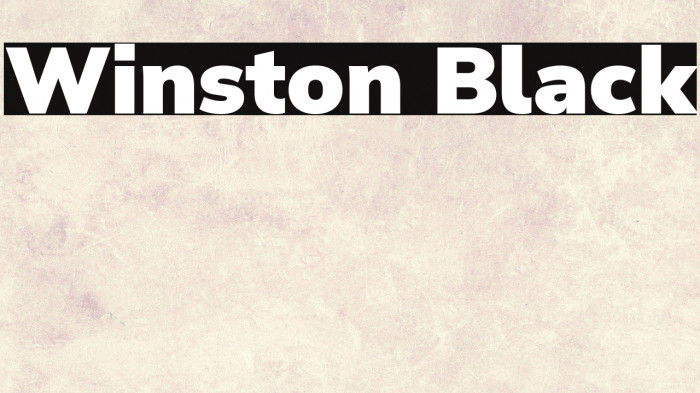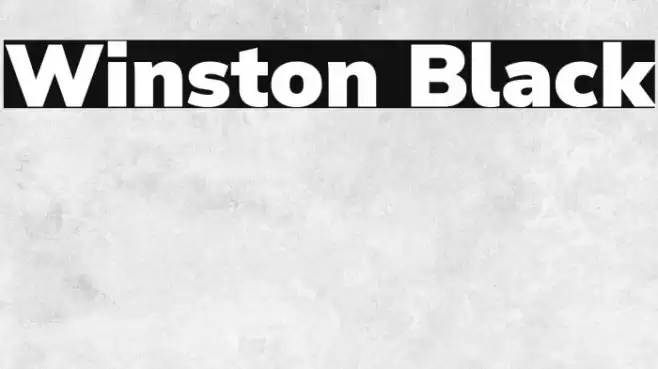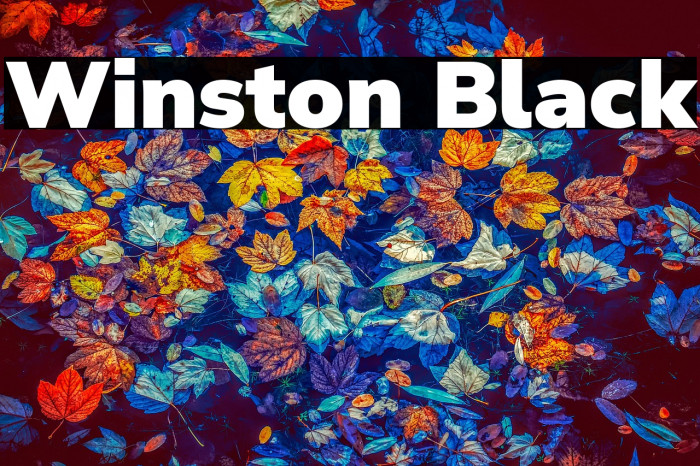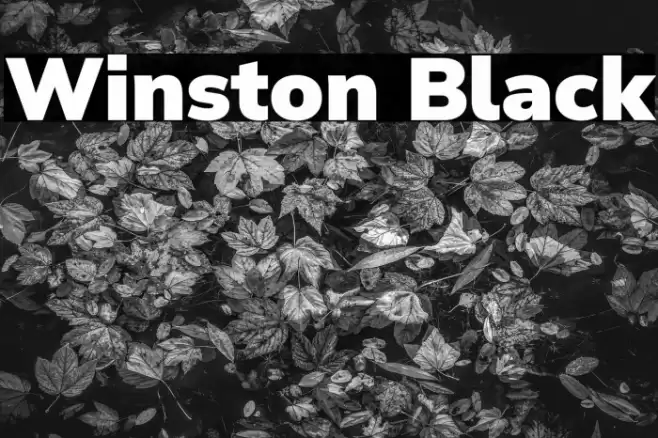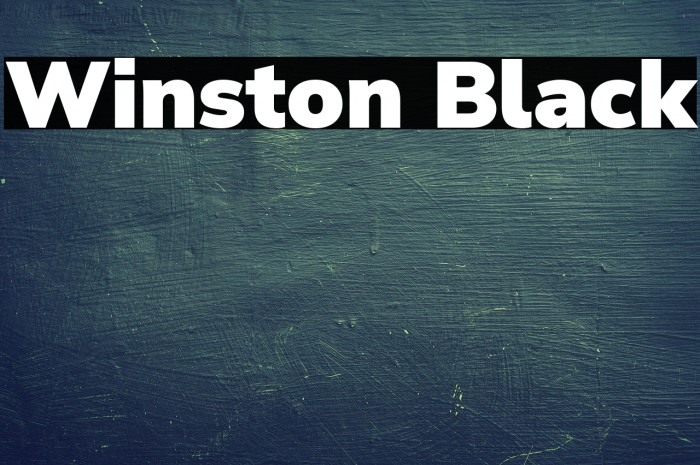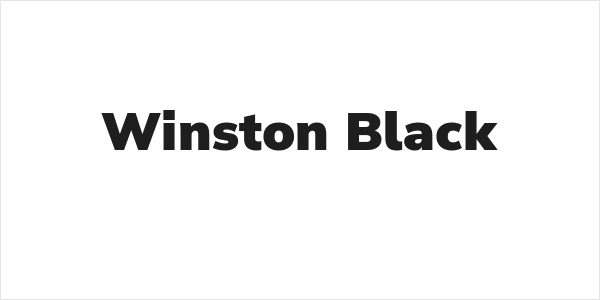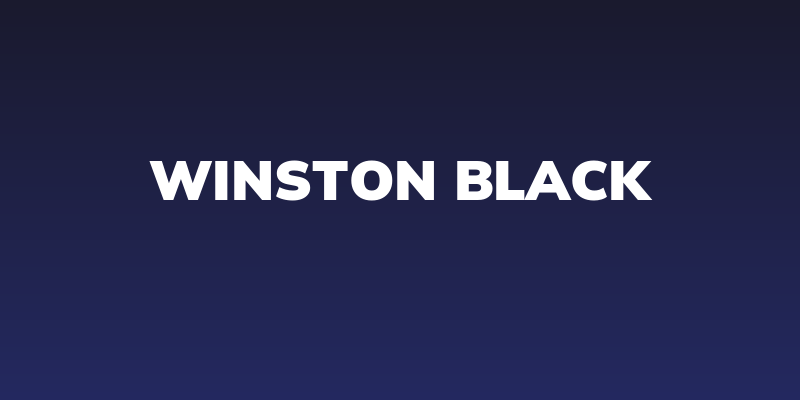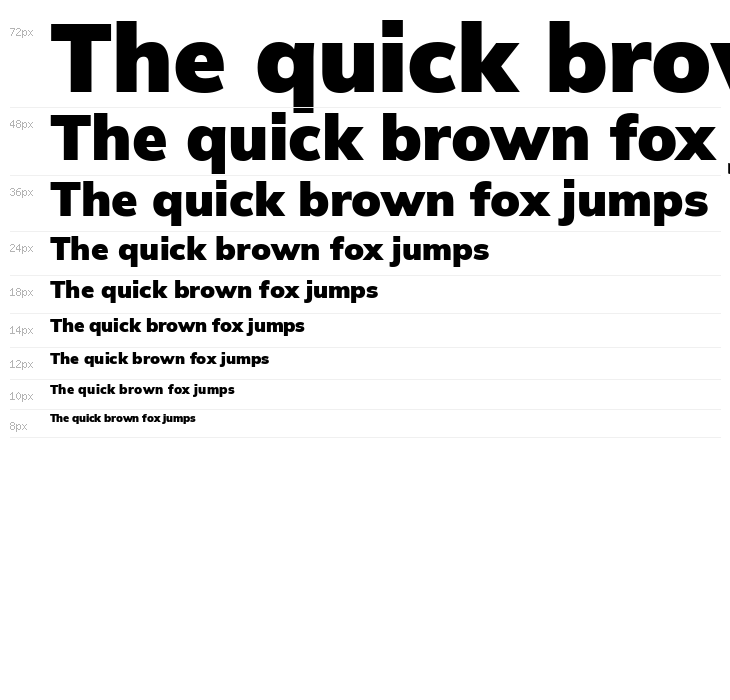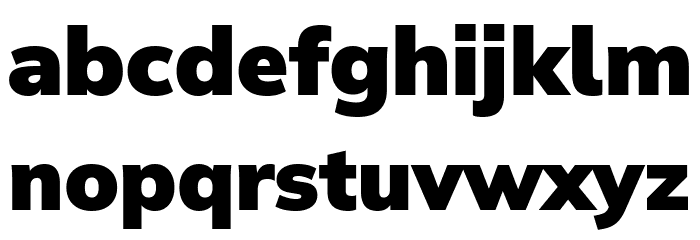
Winston Black Font
Winston Black Description
This font features bold, strong characters with a modern and impactful appearance. The uppercase letters are robust and commanding, while the lowercase letters maintain a consistent weight, providing a sense of balance and uniformity. The numerals are equally bold, ensuring clarity and readability. Special characters are designed with the same thickness, making them stand out effectively. The overall design is clean and straightforward, making it suitable for a variety of applications where a powerful and assertive typeface is needed.
| Proposed Projects | Ideal for branding, headlines, posters, and any design requiring a bold statement. |